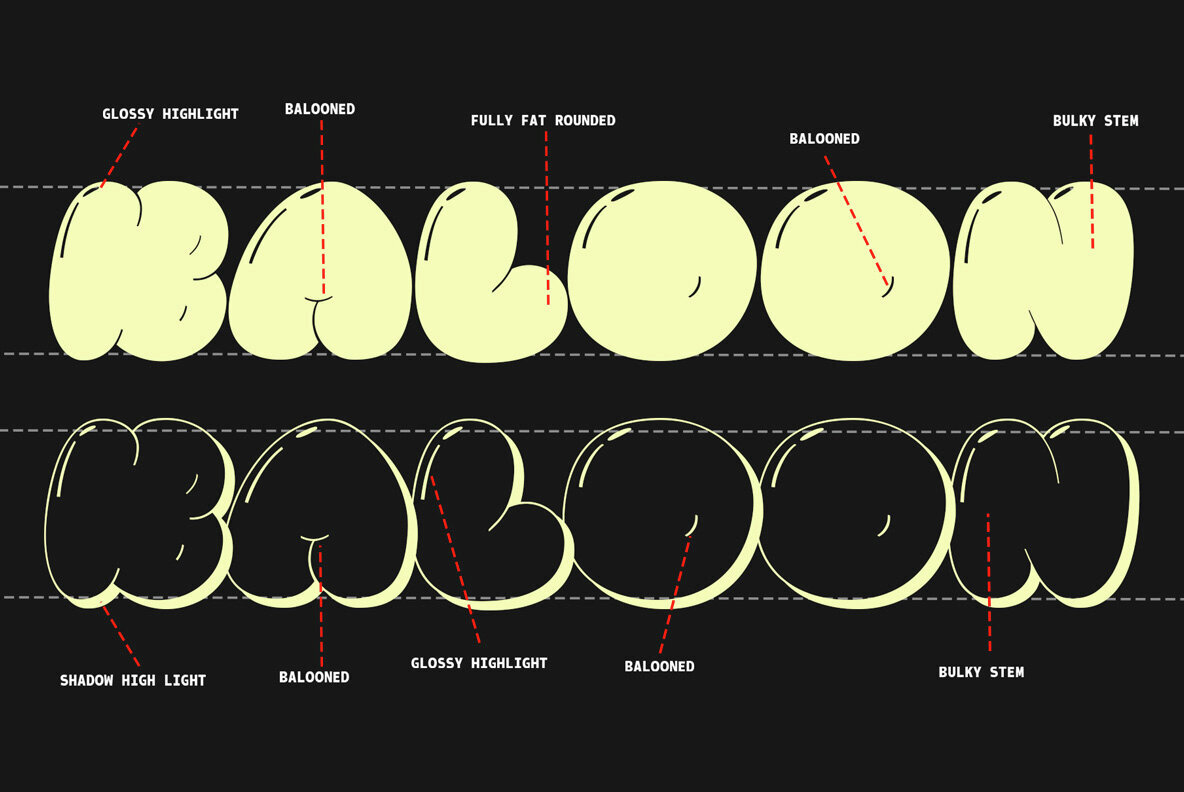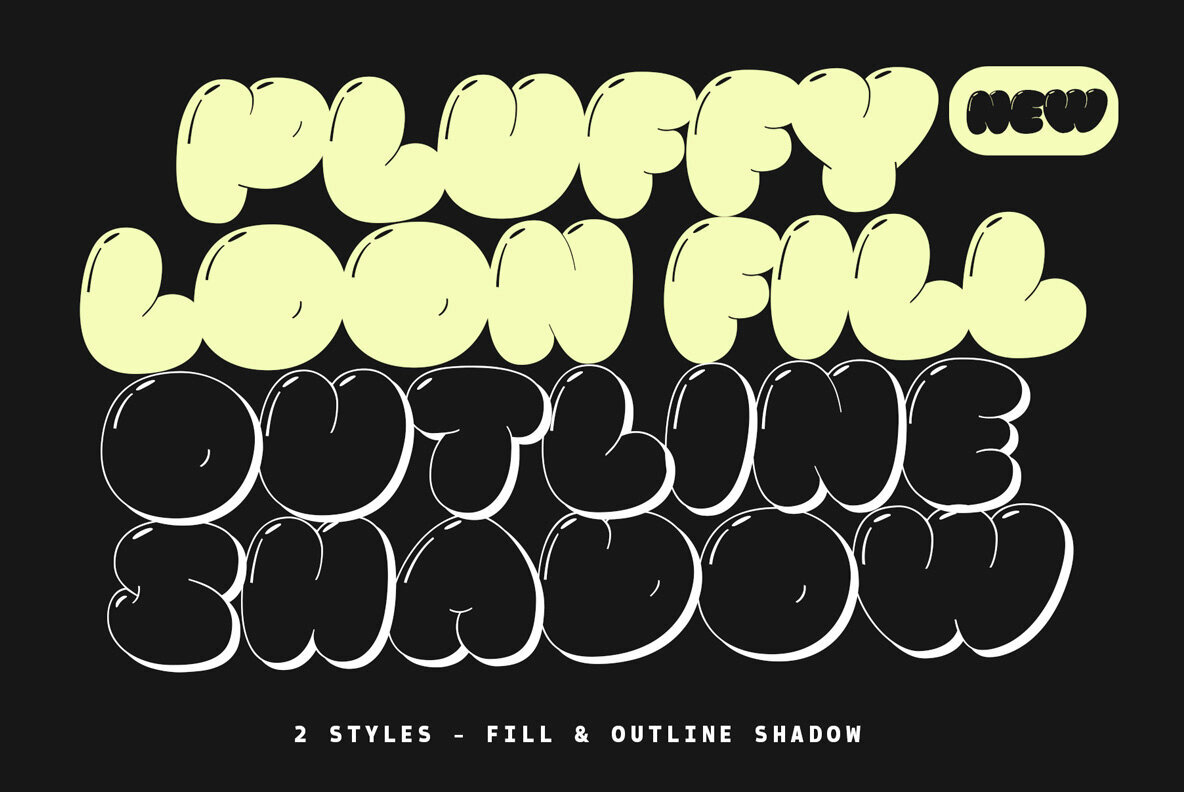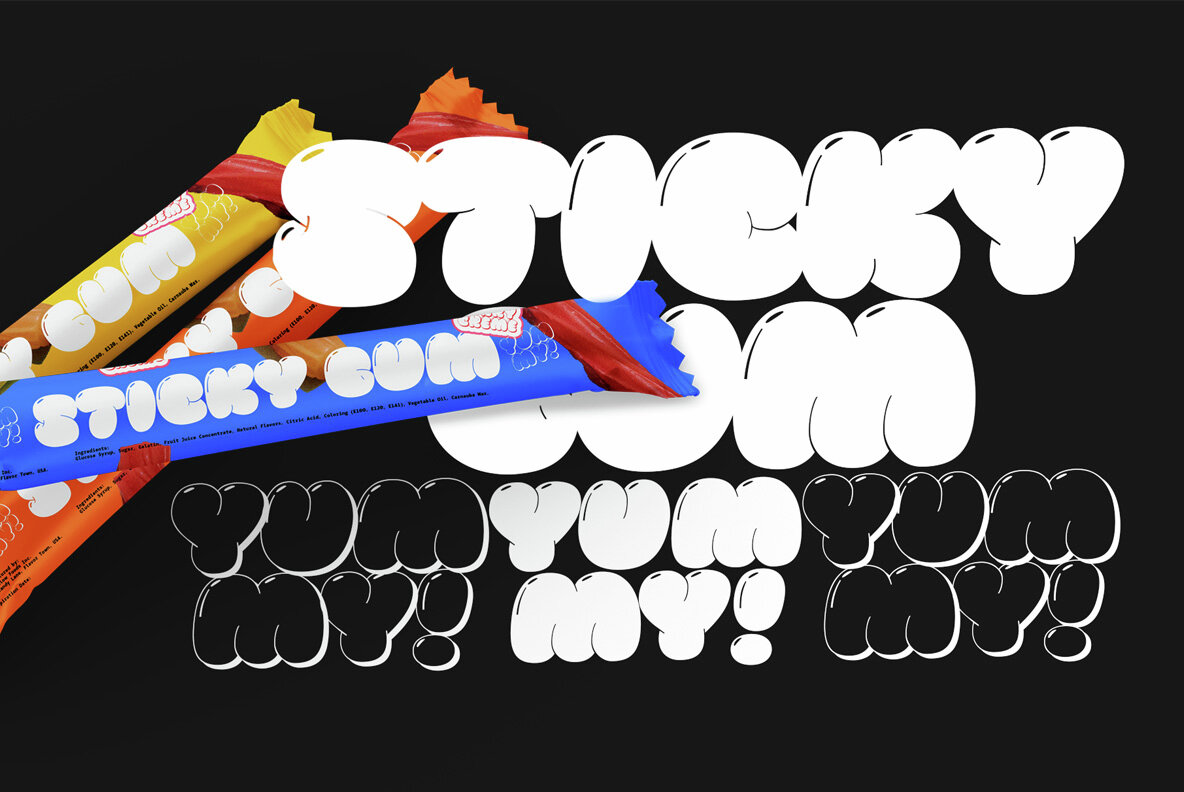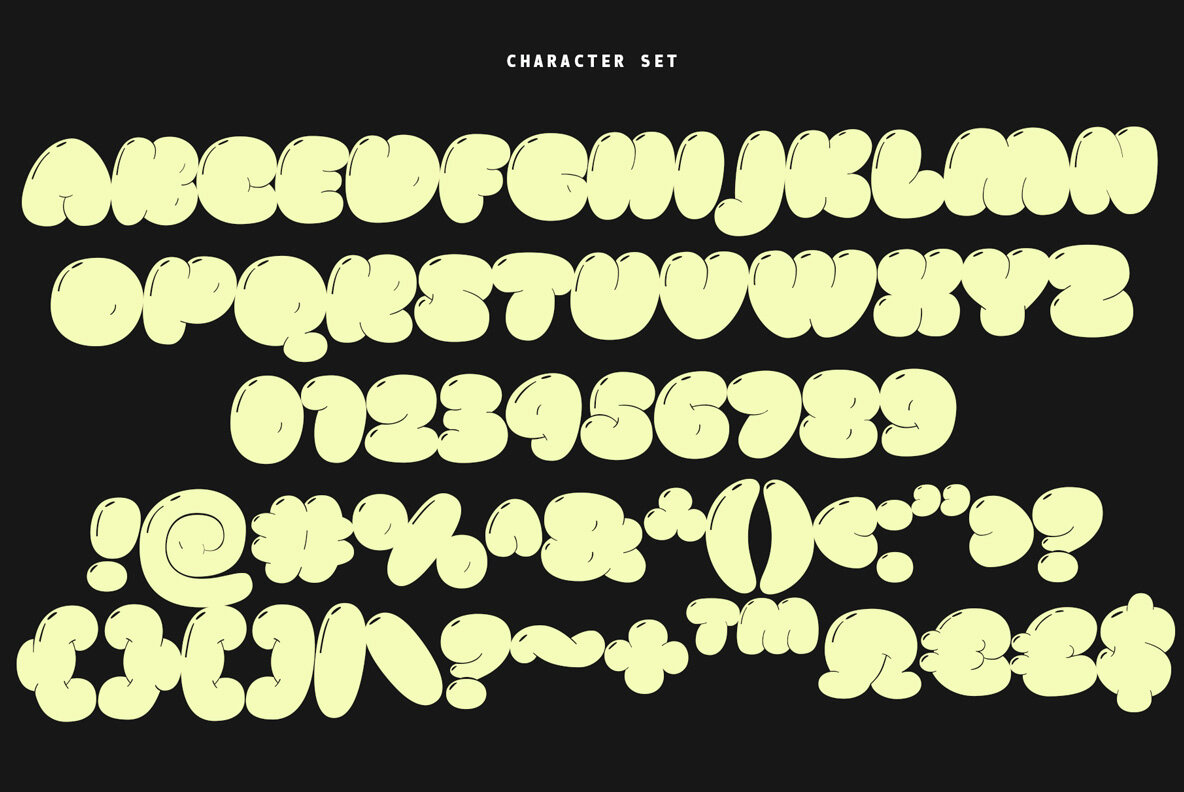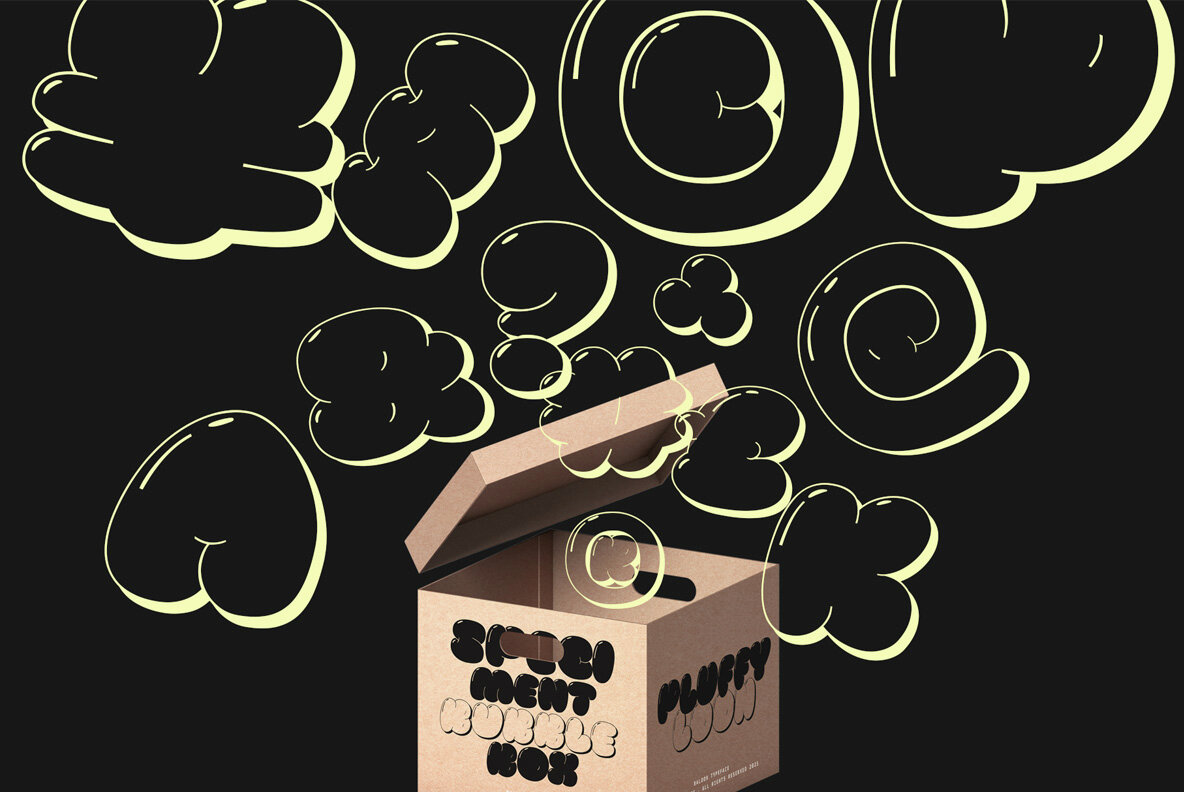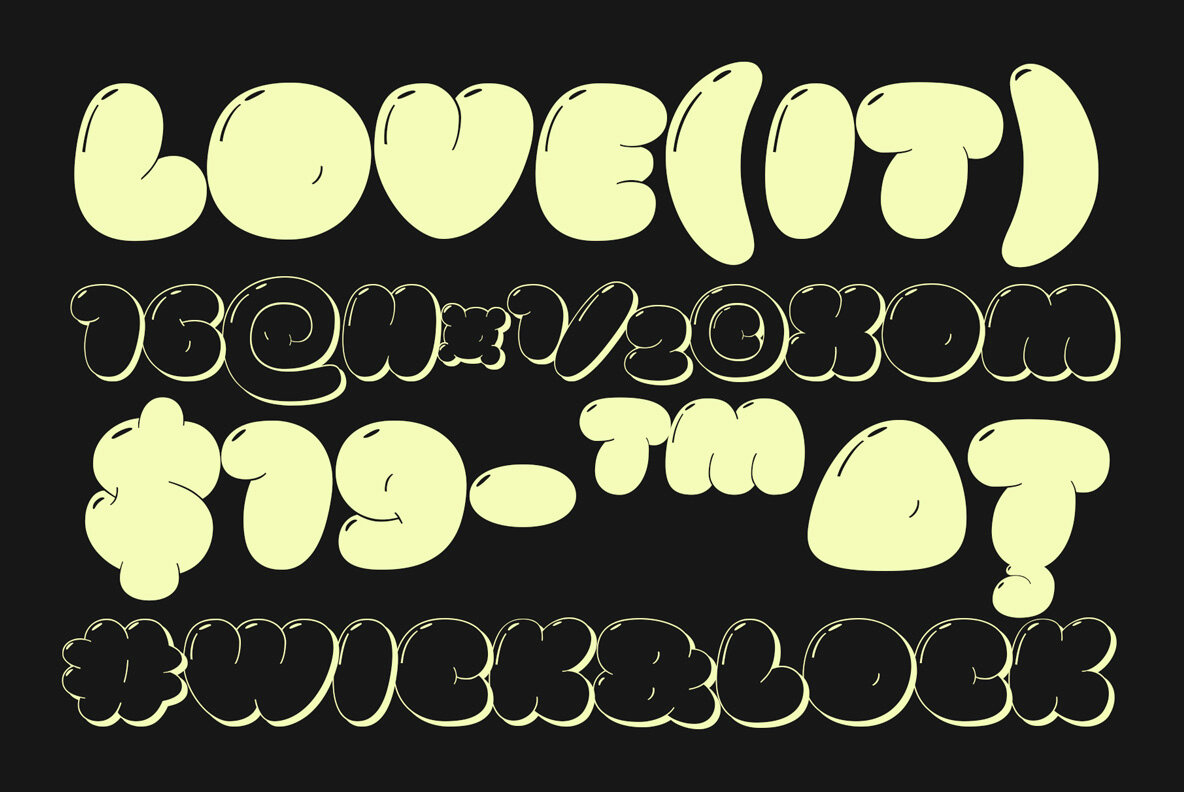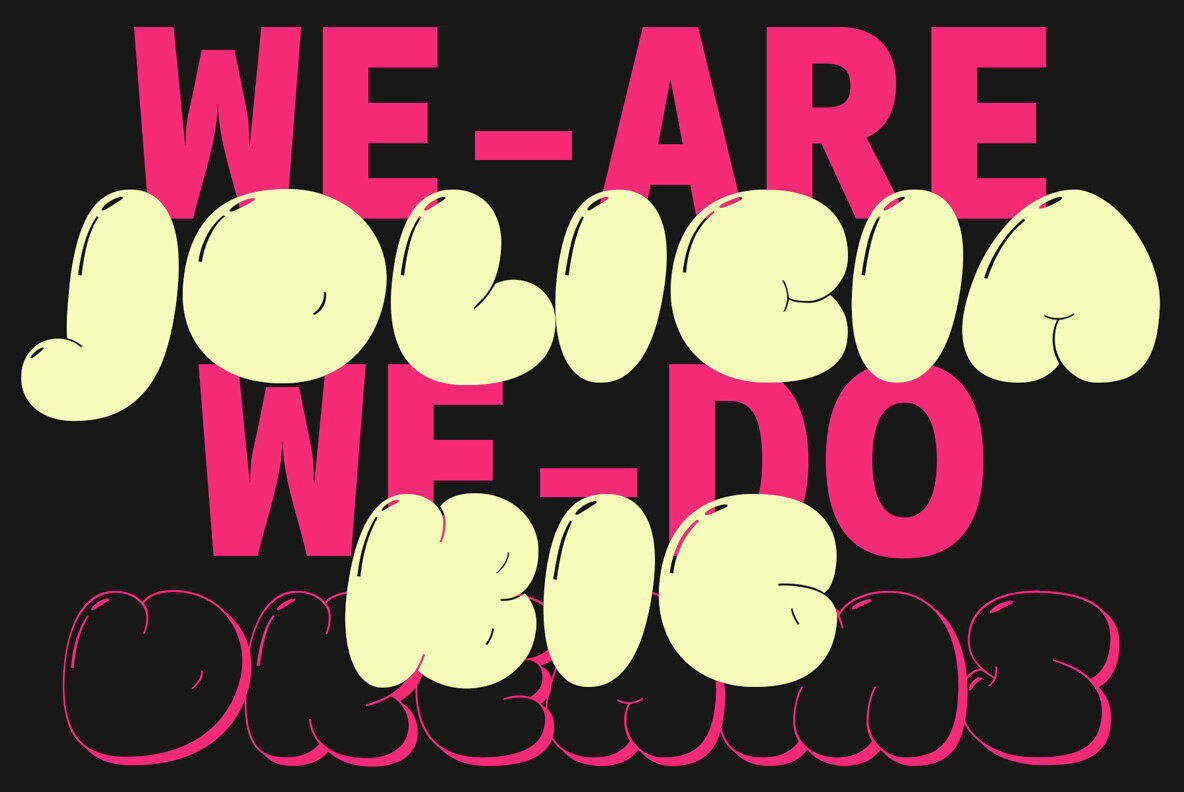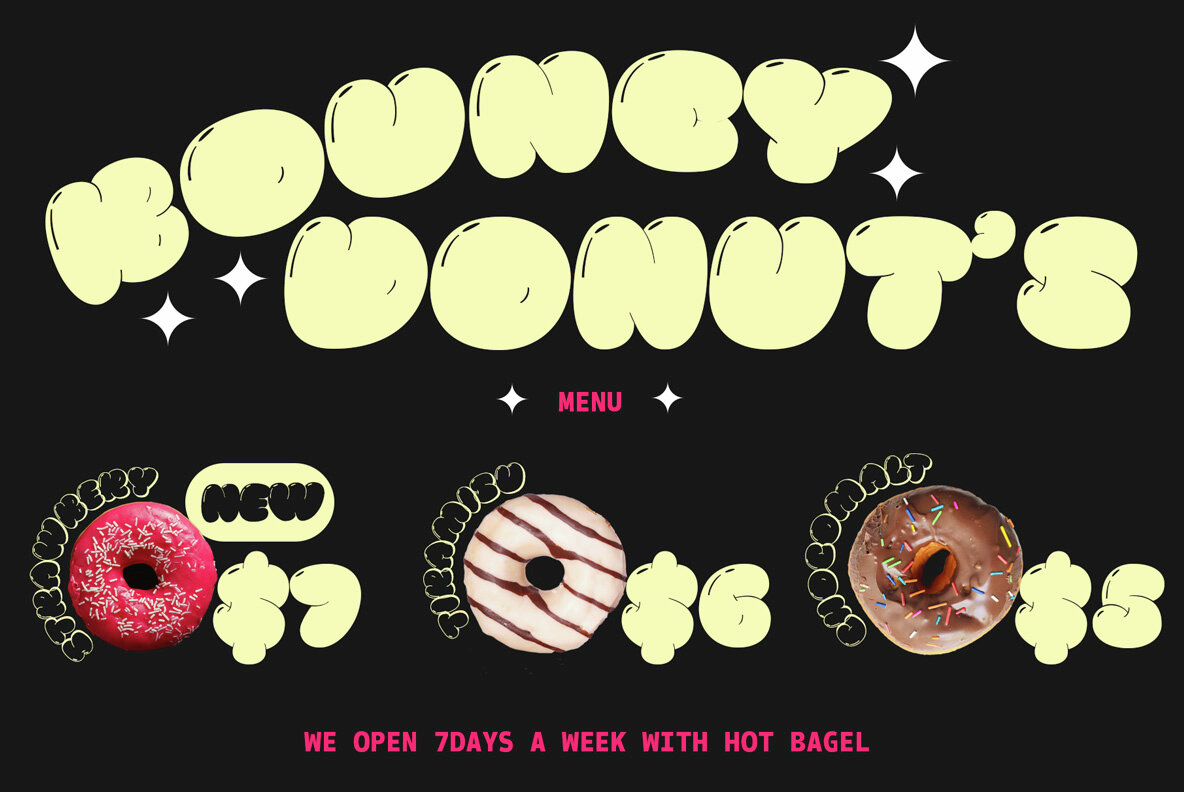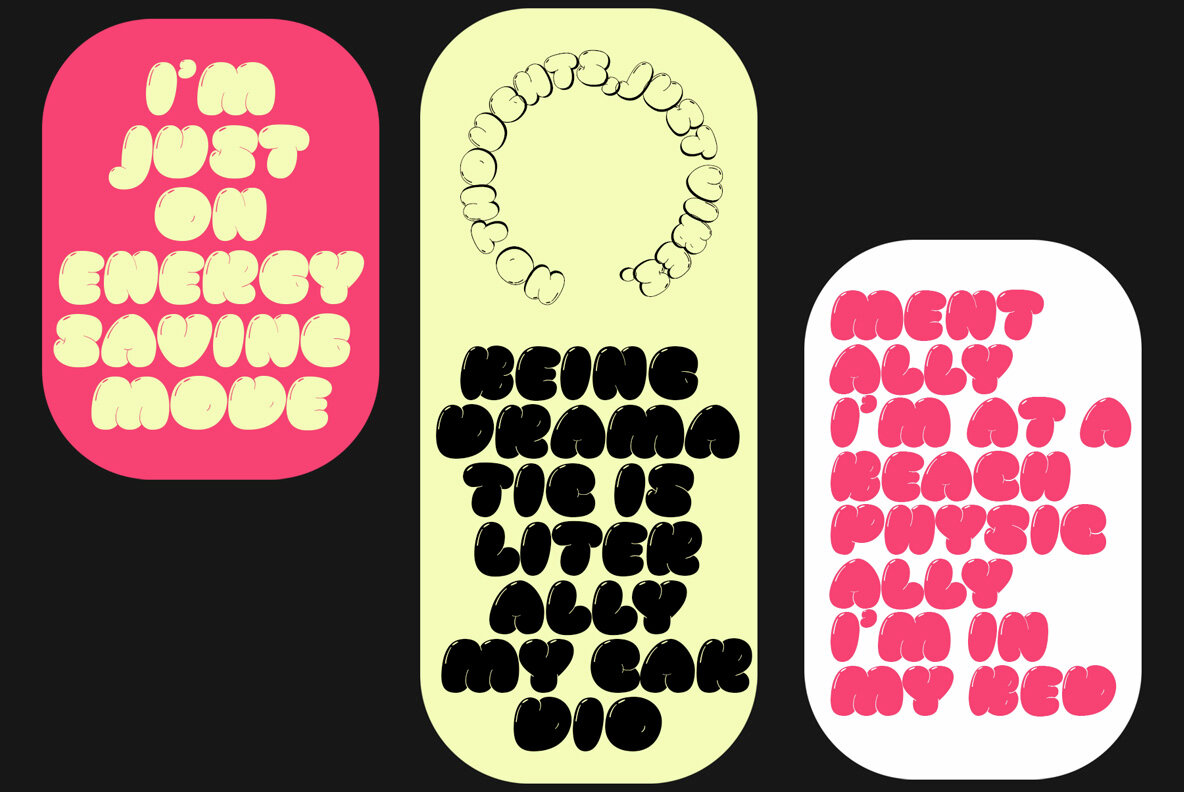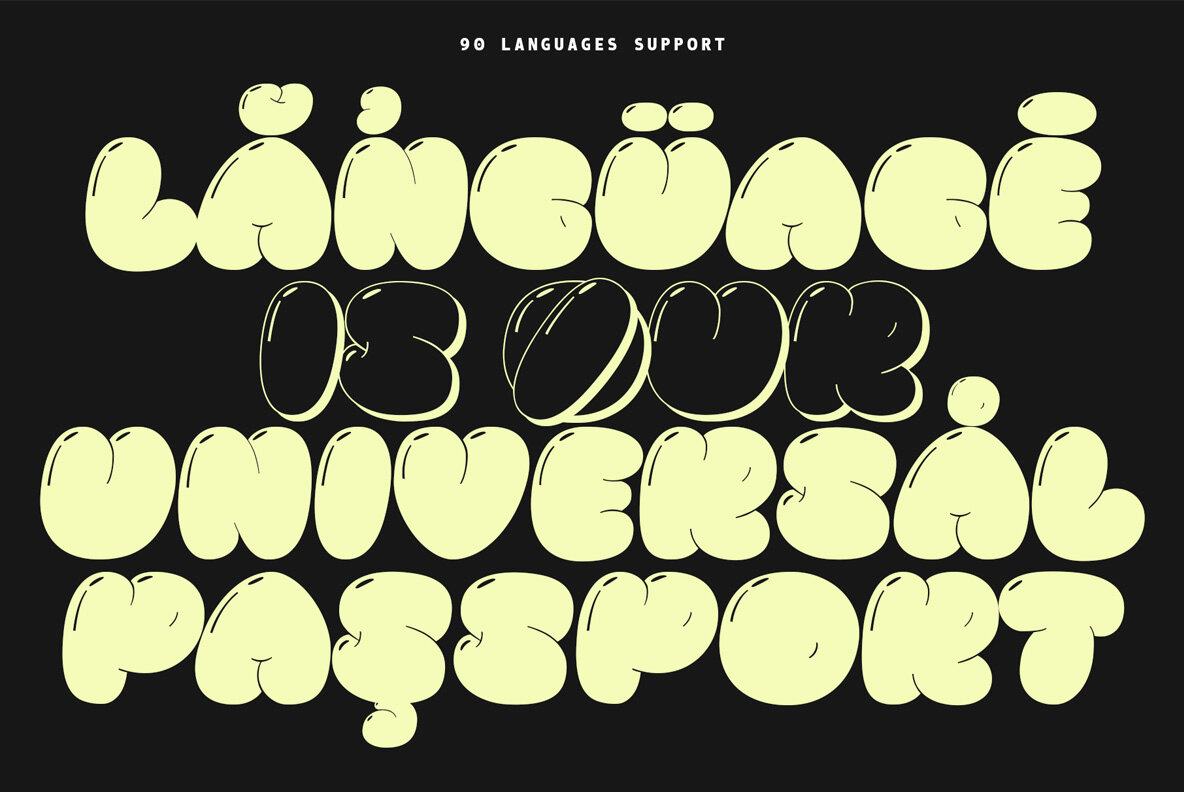
Pluffy Loon Font
Pluffy Loon
Pluffy Loon Outline Shadow
The Pluffyloon typeface captures the spirit of joy and creativity with its lively, three-dimensional balloon-inspired design. Each letter emulates the look of an inflated balloon, complete with glossy highlights, evoking the whimsy and wonder of helium balloons soaring through the air.Pluffyloon: Playful Balloon-Style Font